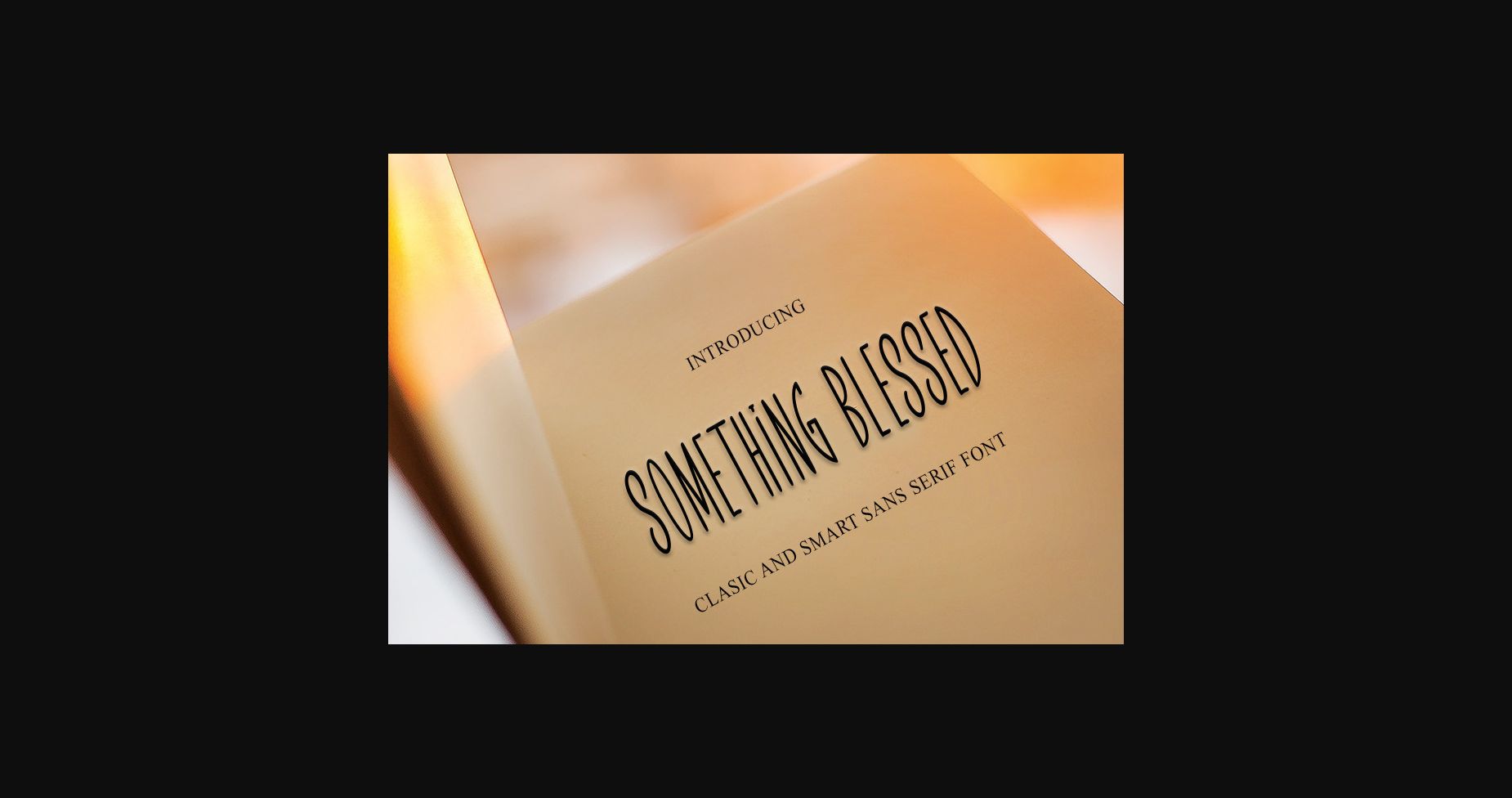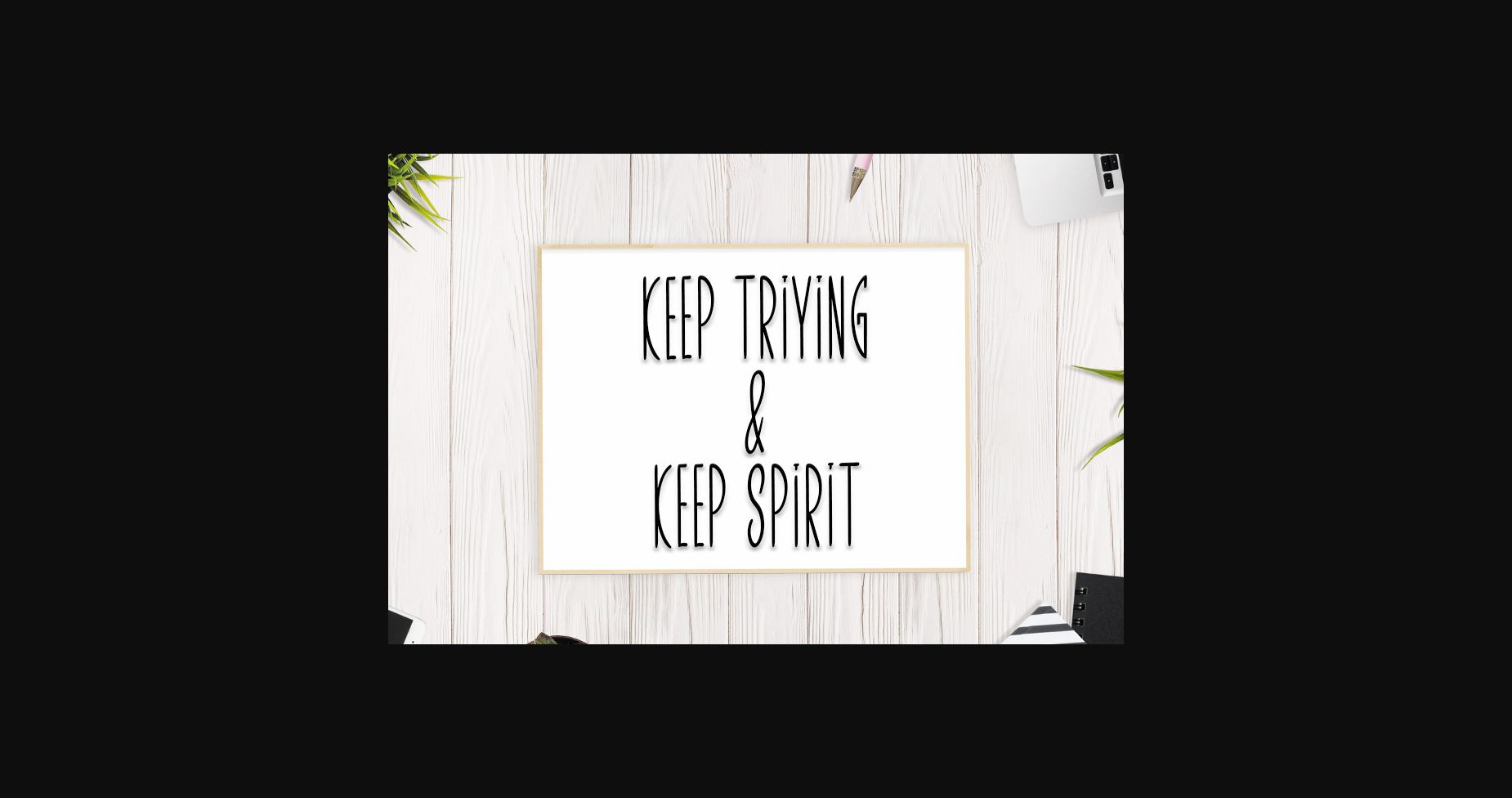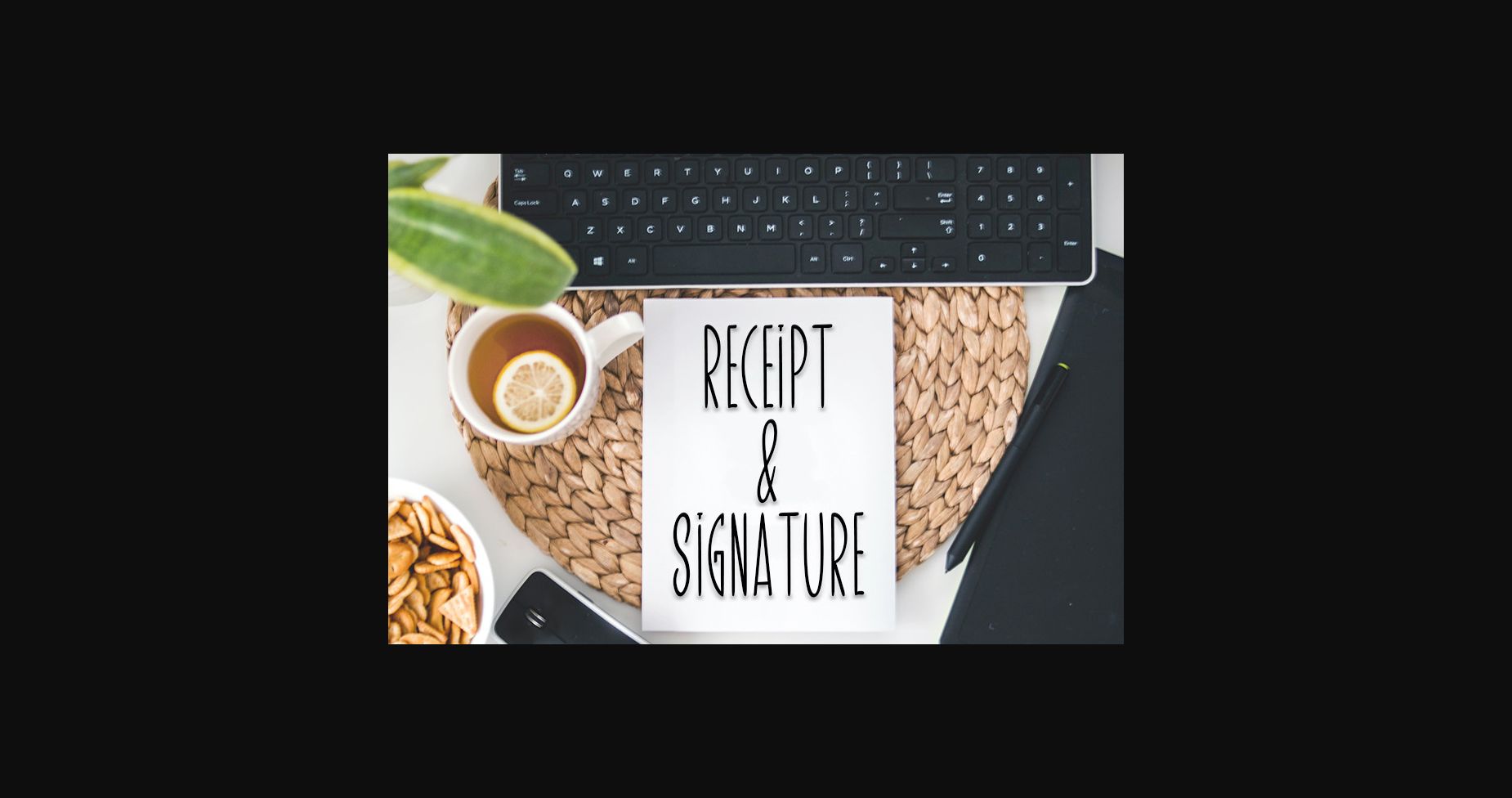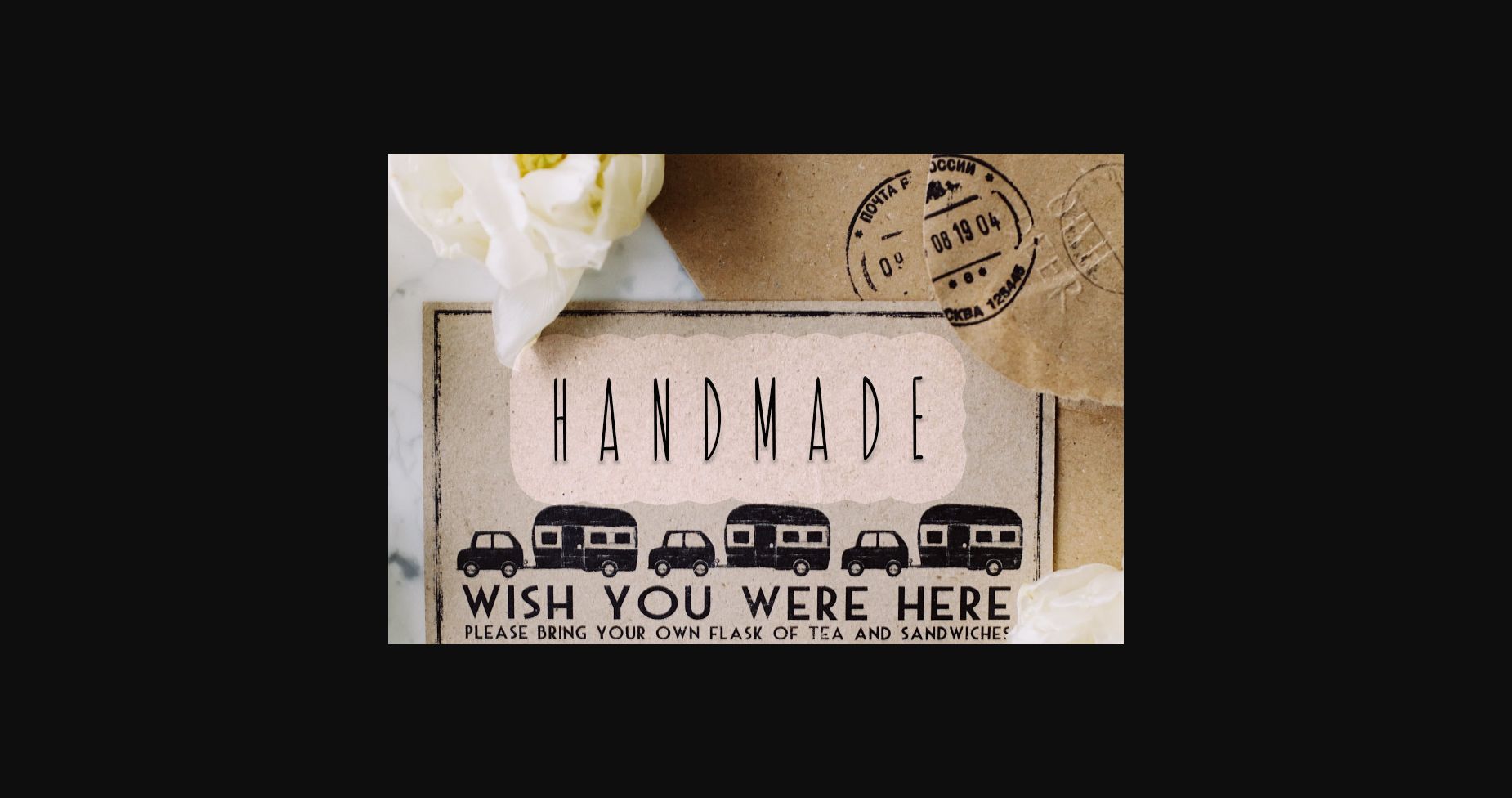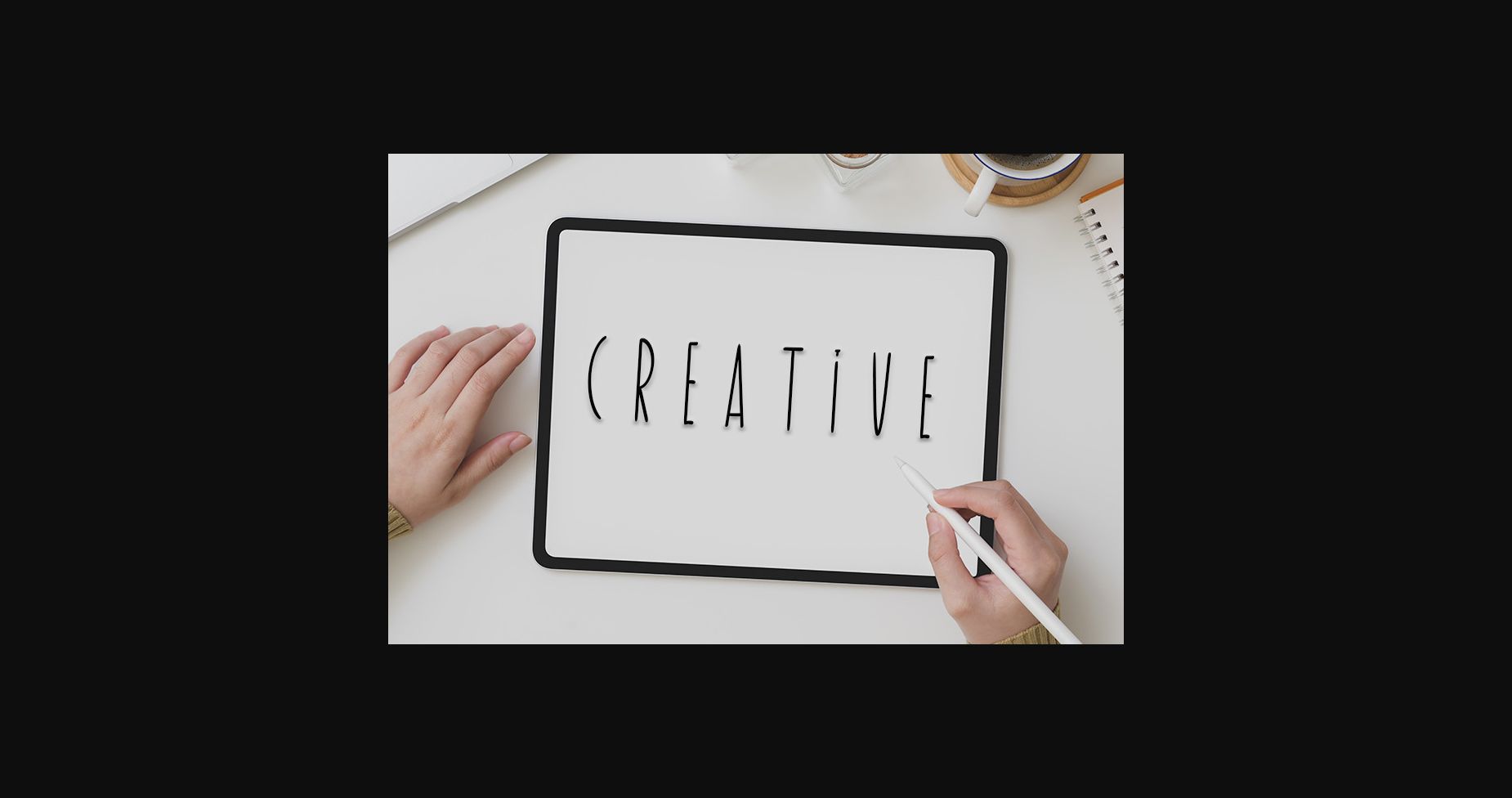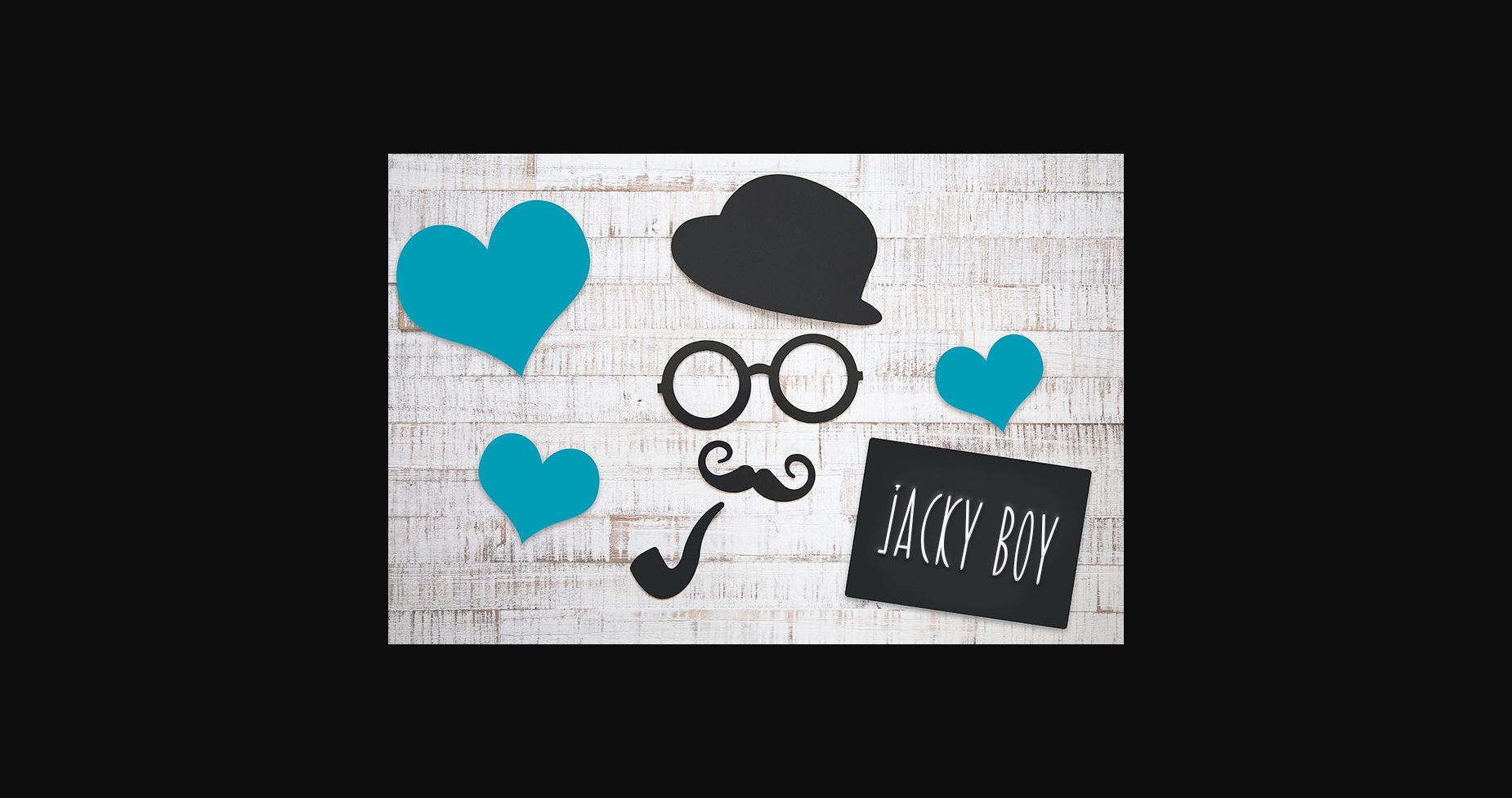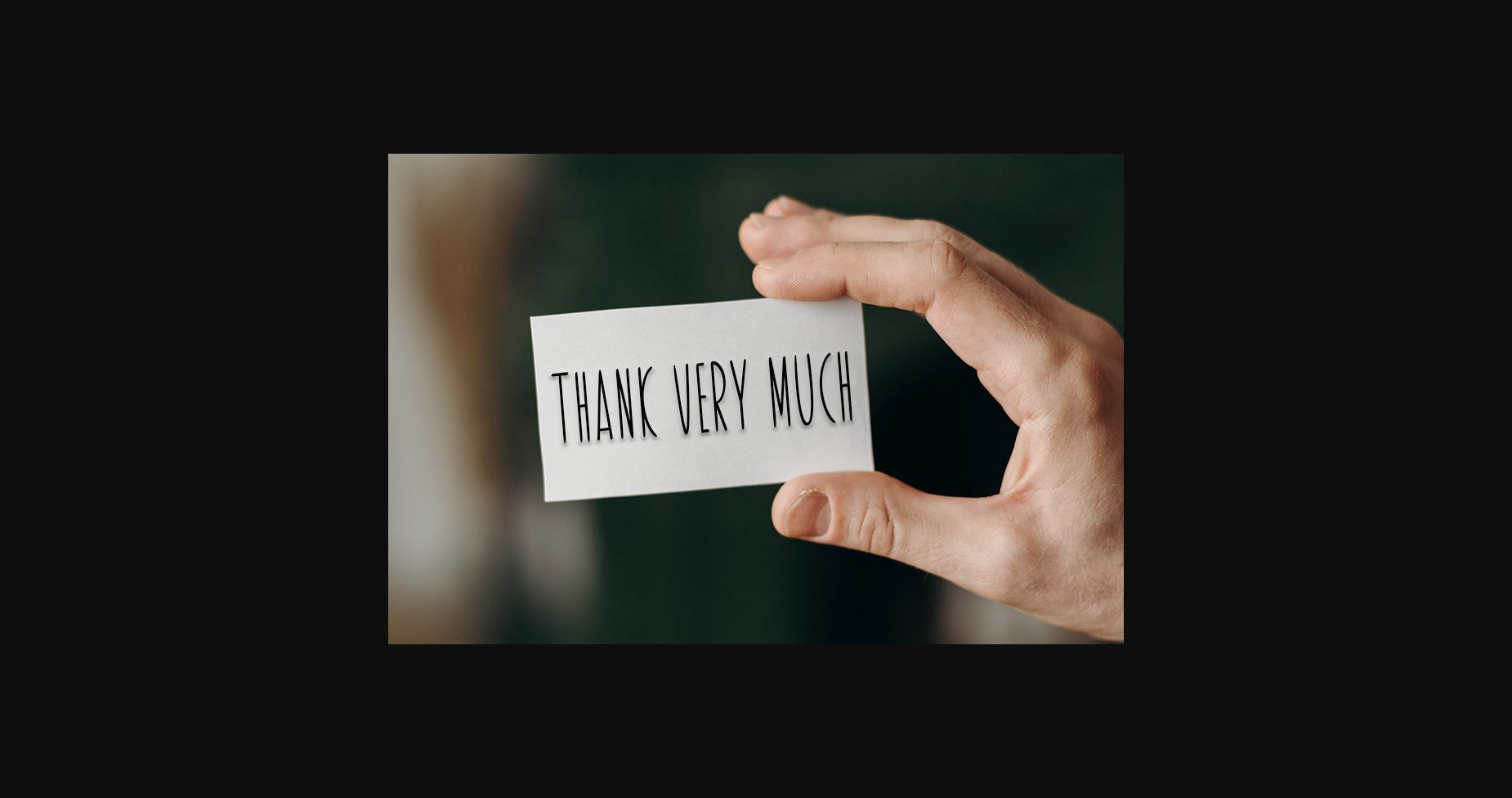
Something Blessed Font
Something Blessed is a playful and smart-looking sans serif font. It is the ideal choice for creating eye-catching logos, branding, and quotes. Every letter has a unique and beautiful touch, which will make your design come alive!